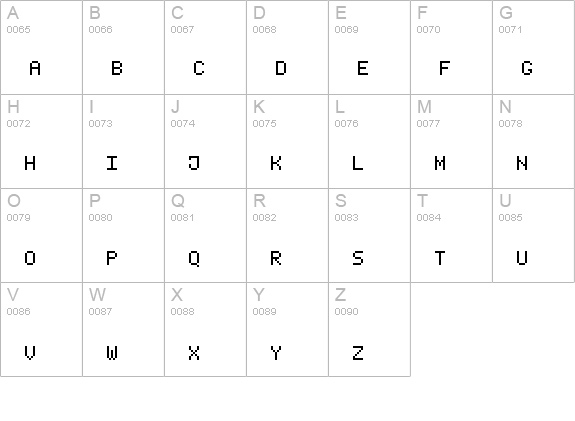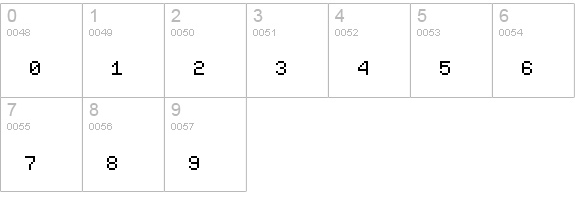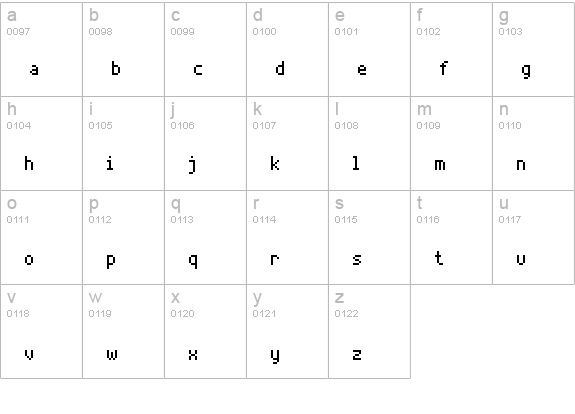
Thin Pixel-7 Font Details
Thin Pixel-7 font is a sleek and modern typeface that is perfect for adding a touch of sophistication to any design project. With its clean lines and minimalist aesthetic, this font is sure to catch the eye and give your work a polished and professional look. The Thin Pixel-7 font is incredibly versatile, making it suitable for a wide range of applications. Whether you're designing a logo, creating a website, or working on a print project, this font has you covered. Its thin and pixelated appearance adds a unique and contemporary flair to any design, making it stand out from the crowd. One of the best things about the Thin Pixel-7 font is that it is free. Yes, you read that right. This high-quality font is freely available to download at FontsMarket.com. We believe that great design should be accessible to everyone, and that's why we are offering this font at no cost. So, whether you're a professional designer or a hobbyist, you can take advantage of this amazing font without breaking the bank. Downloading the Thin Pixel-7 font from FontsMarket.com is quick and easy. Simply visit our website, search for the font, and click the download button. Within minutes, you'll have this fantastic font ready to use in your next project. So why wait? Enhance your designs with the Thin Pixel-7 font. Download it for free today at FontsMarket.com and let your creativity shine.